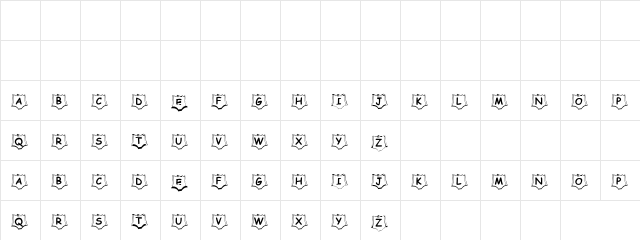
F4 or F5 Regular
Design Context for F4 or F5 Typeface
F4 or F5 is a composed and adaptable typeface that performs quietly and consistently across a wide range of design contexts.